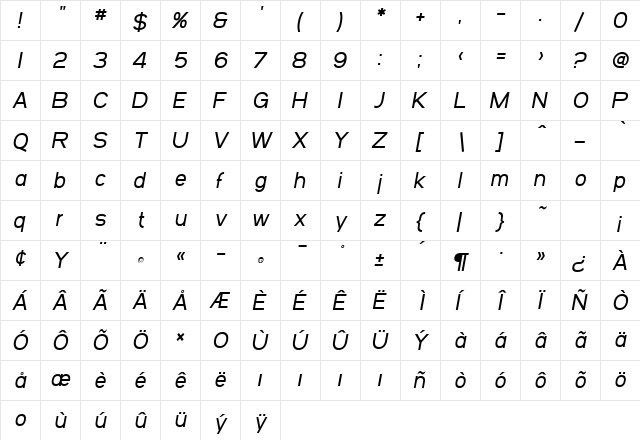
SF Arborcrest Medium Oblique
Design Context for SF Arborcrest Medium Typeface
SF Arborcrest Medium offers clean, dependable letterforms without strong stylistic allegiance, making it a practical choice for designers who need flexibility. The slanted form adds forward momentum and visual energy.
Pro Tip: Try SF Arborcrest Medium for annotation and caption copy alongside an upright companion — the contrast in angle creates a dynamic but ordered typographic system.